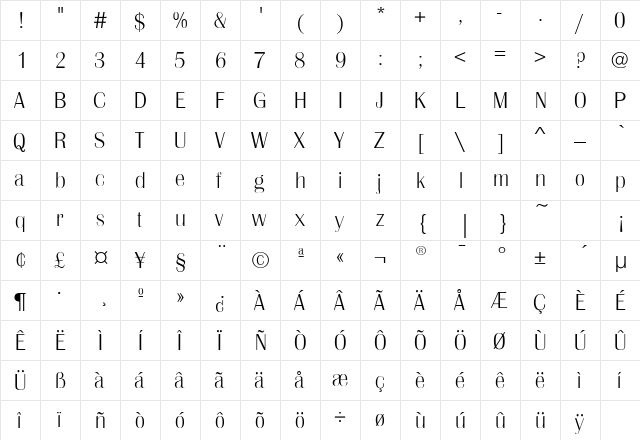
BritannicEFExtraLight Regular Font Preview
BritannicEFExtraLight Regular
BritannicEFExtraLight Regular Font Details
Design Context for BritannicEFExtraLight Typeface
BritannicEFExtraLight offers clean, dependable letterforms without strong stylistic allegiance, making it a practical choice for designers who need flexibility. The delicate stroke weight brings airiness and refinement to layouts.